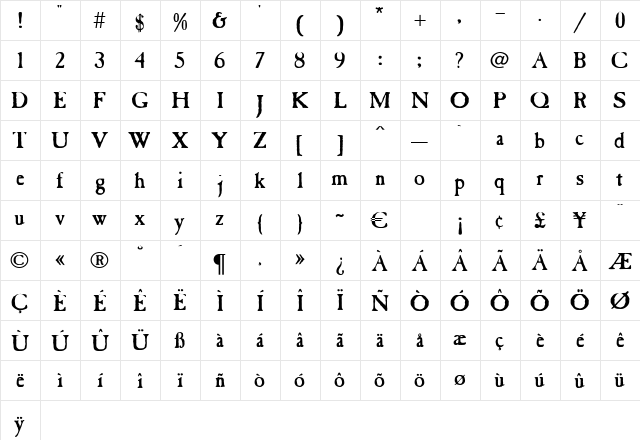
Caslon Antique VL Regular
Design Context for Caslon Antique VL Typeface
Caslon Antique VL has the warm character of retro typography — evoking diners, record sleeves, and the golden age of print advertising.
Font Pairing: Combine Caslon Antique VL with a simple slab or neutral sans — period-accurate companions reinforce the vintage feel without competing for attention.
Pro Tip: Lean into Caslon Antique VL's period character by pairing it with aged paper textures, muted colour palettes, and vintage illustration styles.